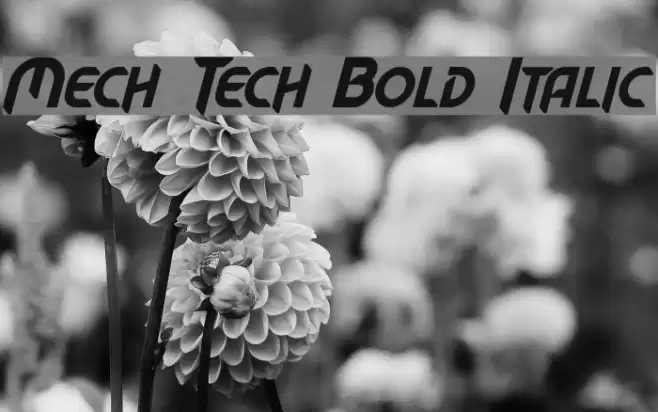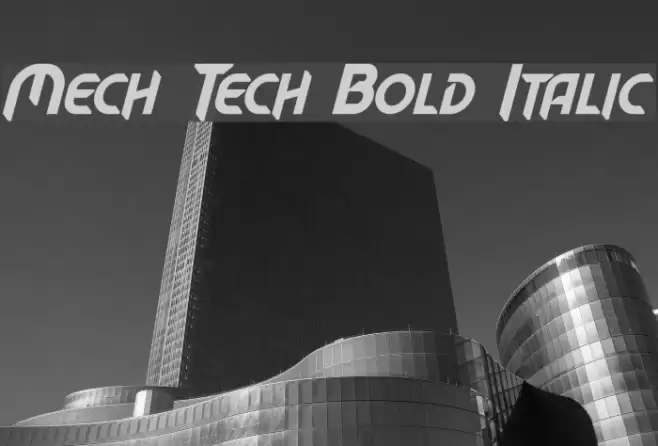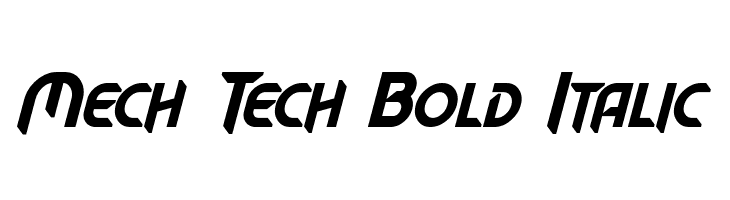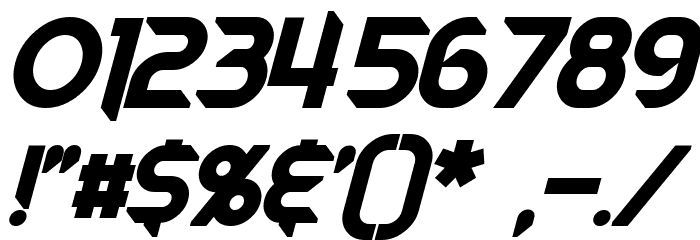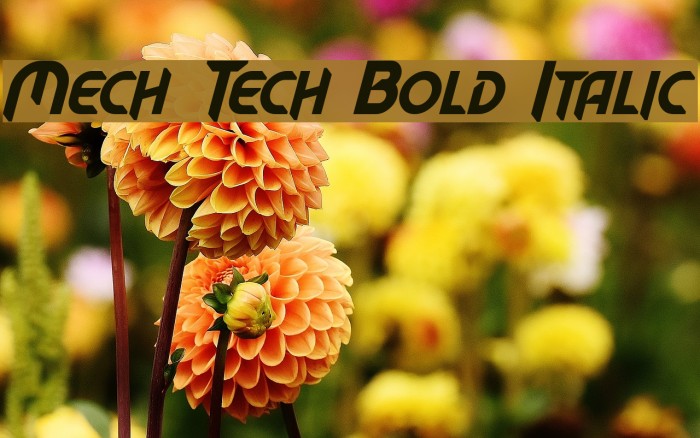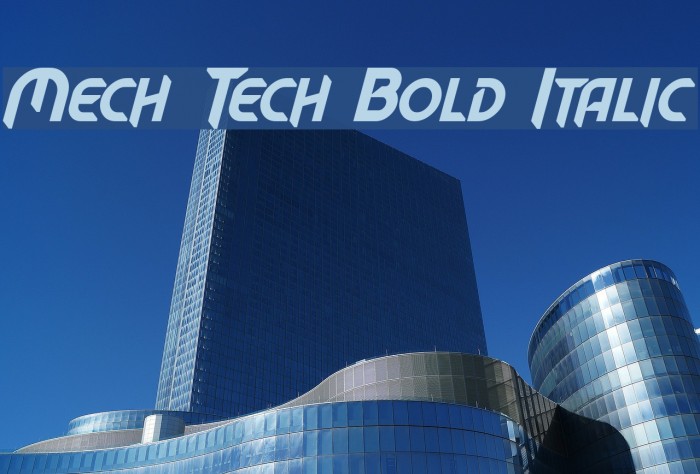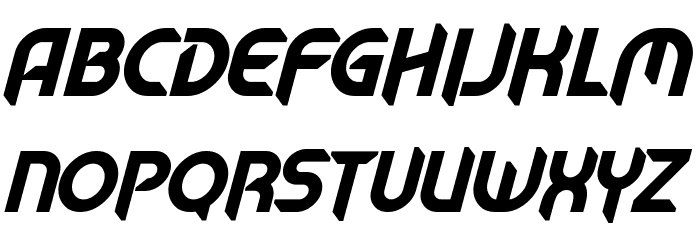
Mech Tech Bold Italic Font
Mech Tech Bold Italic Description
This font features a bold and italicized style with a futuristic and mechanical aesthetic. The characters are angular and dynamic, with a forward-leaning slant that suggests motion and speed. The strokes are thick and consistent, providing a strong visual impact. The overall design is sleek and modern, making it suitable for technology-related themes. The numbers and special characters maintain the same bold and italicized characteristics, ensuring uniformity across all glyphs.
A bold, italicized font with a futuristic, mechanical style from Uncategorized fonts.
- Proposed Projects: Ideal for technology branding, video game titles, sci-fi movie posters, and automotive advertisements.